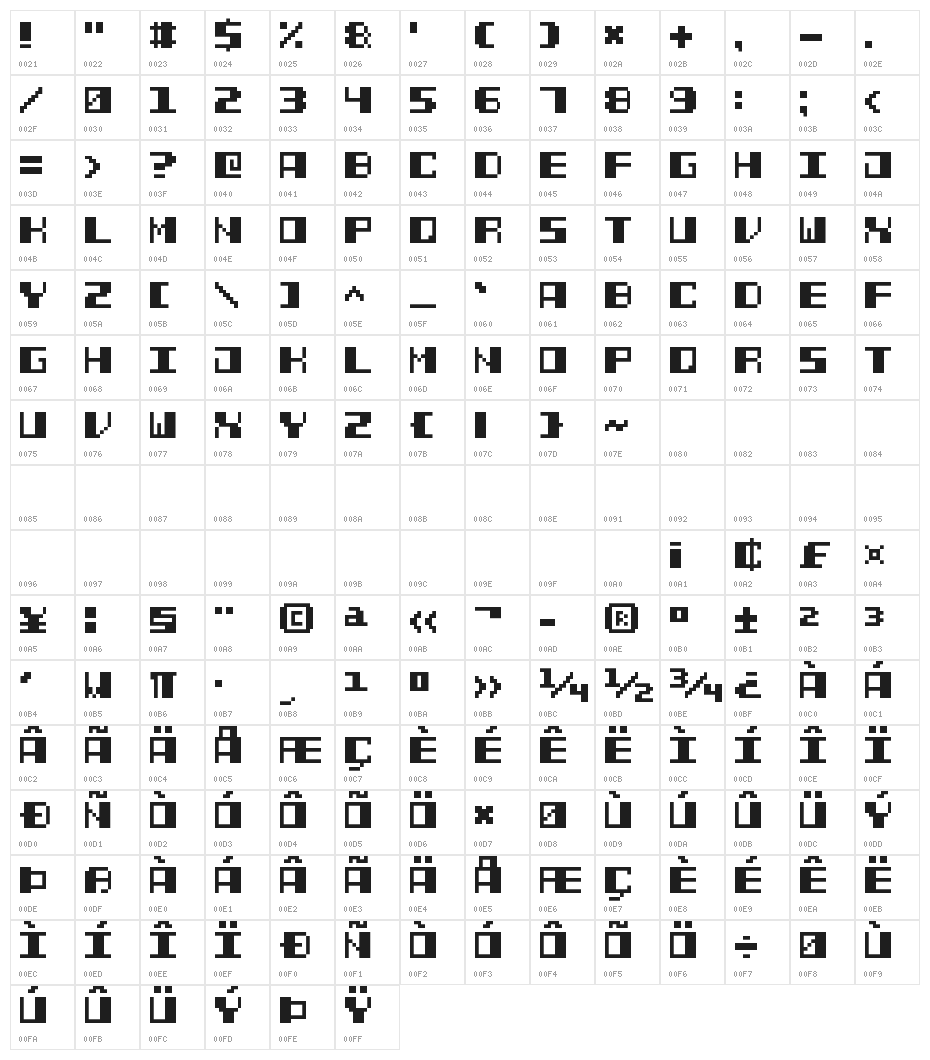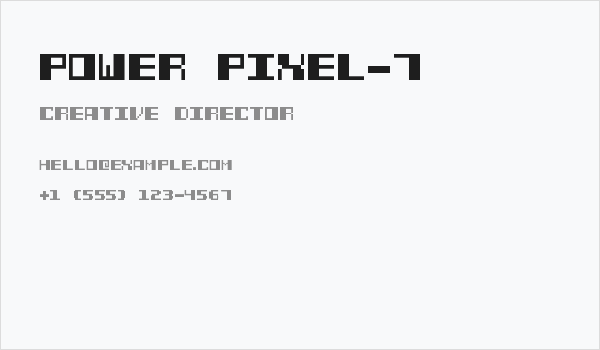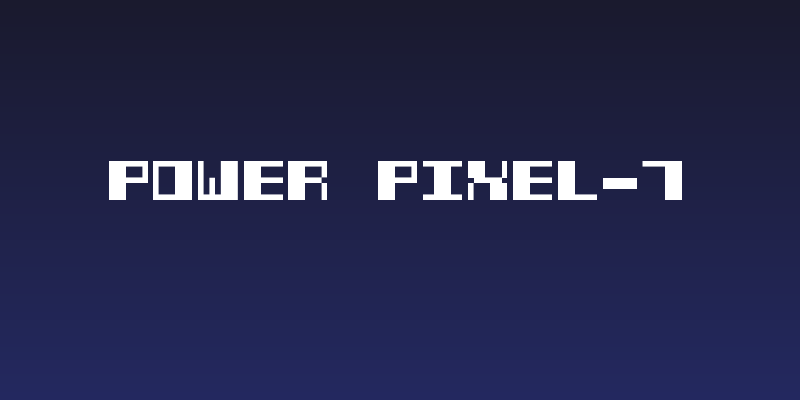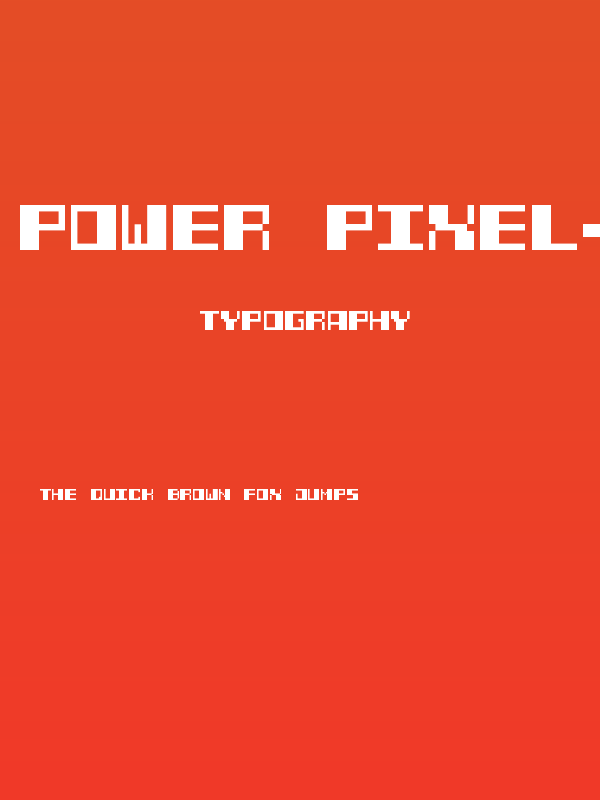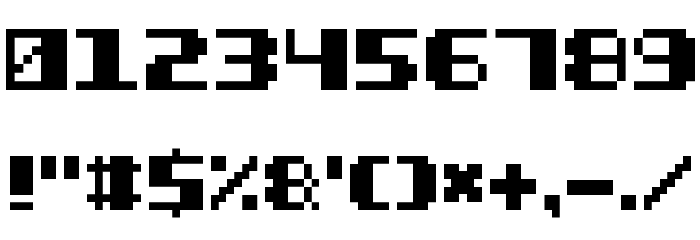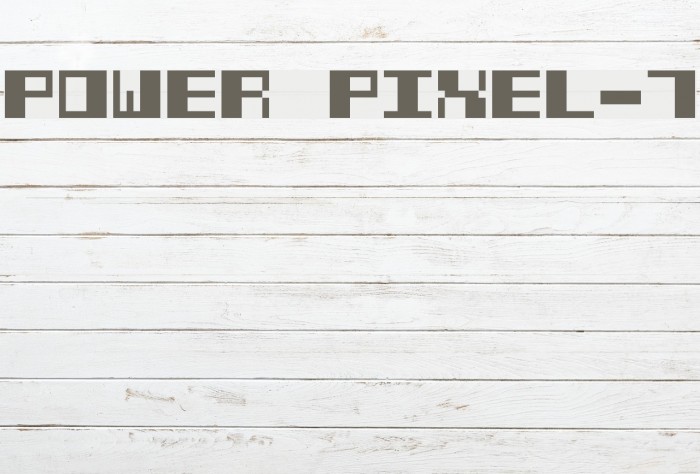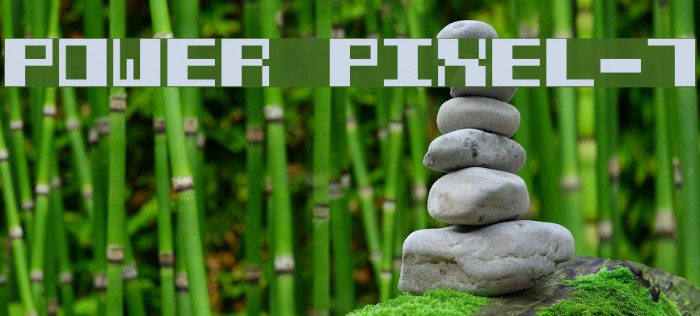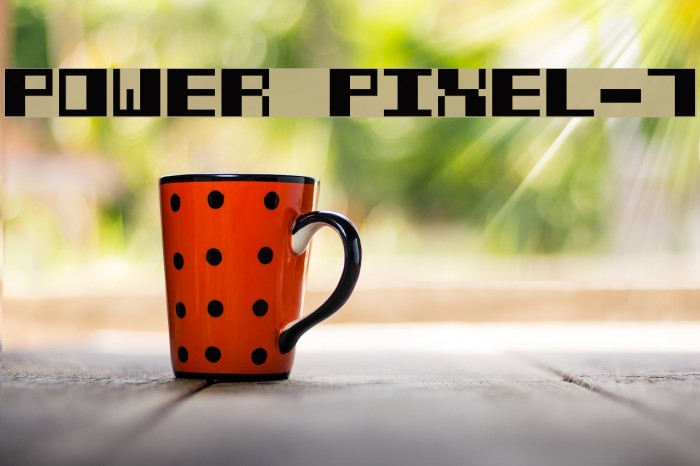
Power Pixel-7 Font
Power Pixel-7 Description
This font features a bold, pixelated design reminiscent of classic video game graphics. Each character is constructed with a blocky, grid-like appearance, giving it a distinctly retro and digital feel. The uppercase and lowercase letters maintain a consistent height, enhancing its uniformity and readability. Numbers and special characters follow the same pixelated style, ensuring a cohesive look across all glyphs. The font's geometric structure makes it ideal for projects that aim to evoke nostalgia or a tech-oriented theme.
| Use Case | Headlines, Logos, Digital Art |
| Proposed Projects | Ideal for video game designs, retro-themed posters, digital art, and tech-related branding. |